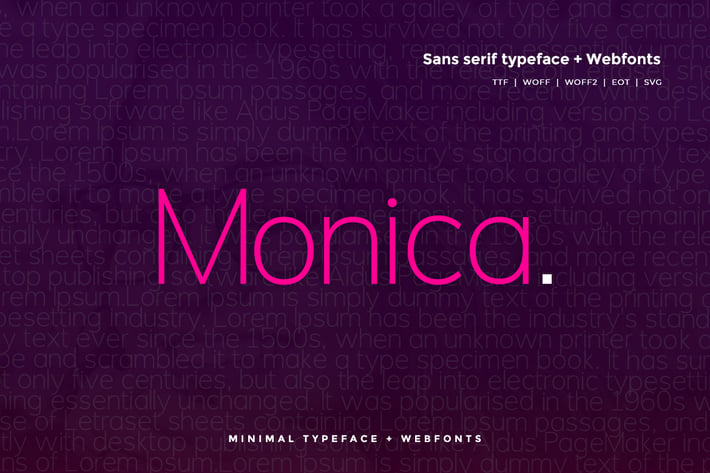
Monica - Modern Typeface + WebFonts
Monica Sans Typeface
Another modern fantastic sanserif typeface from Unbranded, which delivers a remarkable unique typography Style. The pack includes OTF, TTF and Web Fonts (all EOT, SVG, TTF, WOFF included).
Font Designed and Crafted by Jacob Kelvin , Distributed by Webhance Studio.